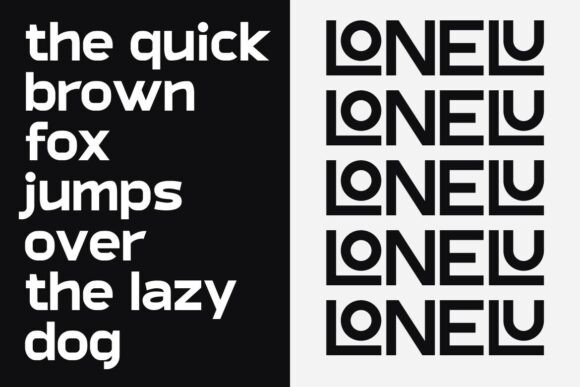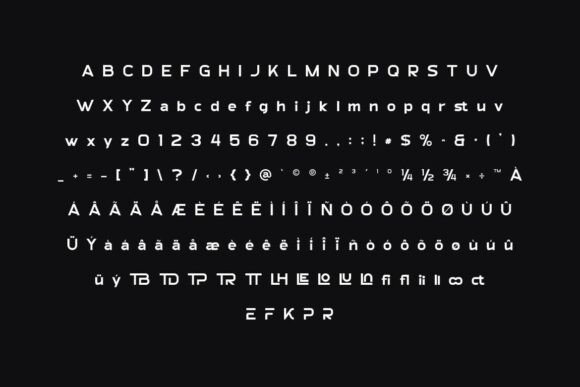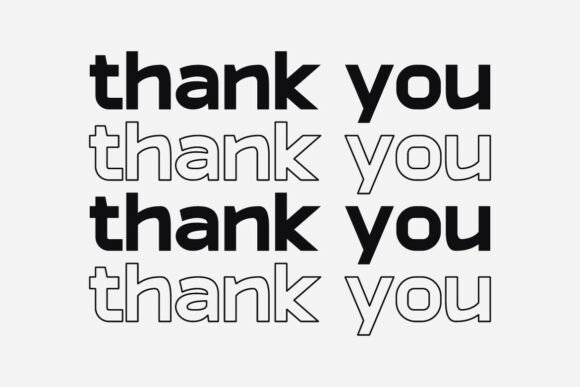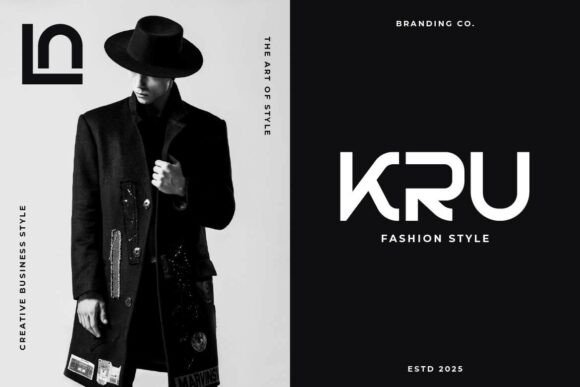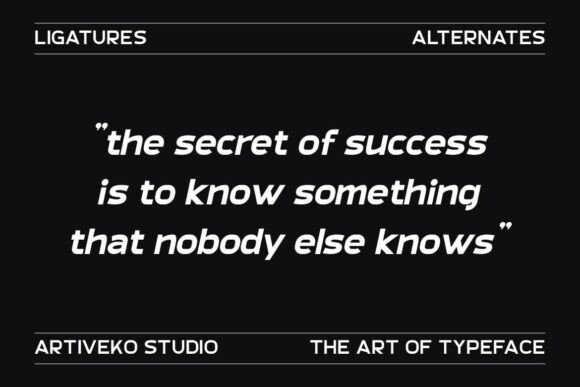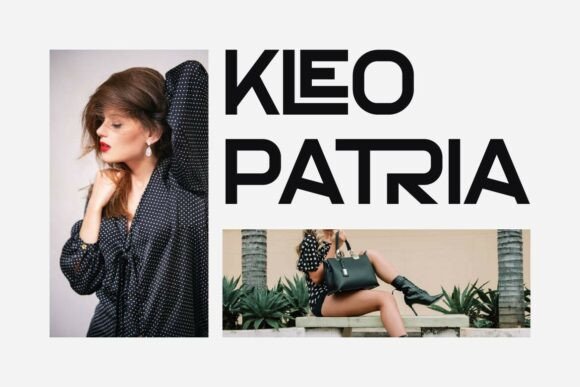
Introduction to Notty Font
Notty is a sharp and stylish sans serif font crafted specifically for modern branding and logo creation.
With its clean lines, strong geometry, and subtle quirks, Notty offers a contemporary and confident aesthetic thatโs perfect for tech startups, fashion labels, creative agencies, and lifestyle brands .